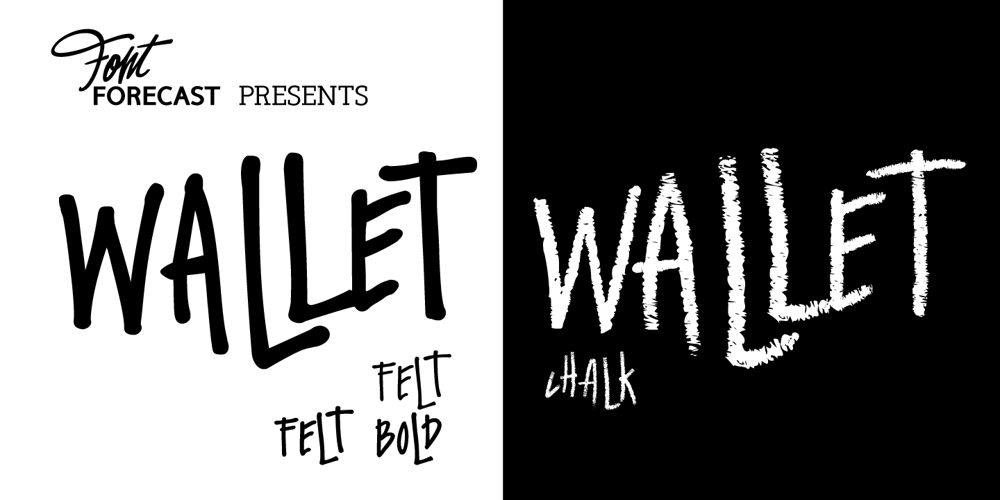
Wallet Font Family was designed by Hanneke Classen and published by Fontforecast. Wallet contains 3 styles and family package options. Wallet is an expressive handwritten font with loads of personality, suitable for many different projects. It comes in three styles: Felt, Felt bold and Chalk. Wallet has 391 glyphs and supports multiple languages. Opentype features, such as contextual alternates, for replacing beginning and ending glyphs as you type and double letter ligatures are also included. To make full use of its potential Wallet requires an opentype-savvy application.